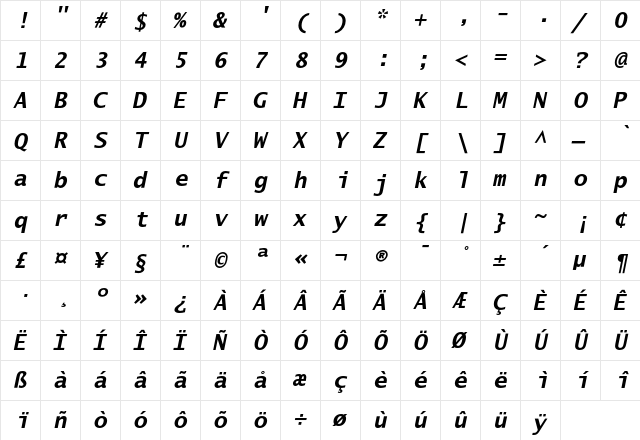
LucidaSansTypeEF BoldObl Font Preview
LucidaSansTypeEF BoldObl
Design Context for LucidaSansTypeEF Typeface
LucidaSansTypeEF is a composed and adaptable typeface that performs quietly and consistently across a wide range of design contexts. Its bold stroke weight gives it real presence on the page.